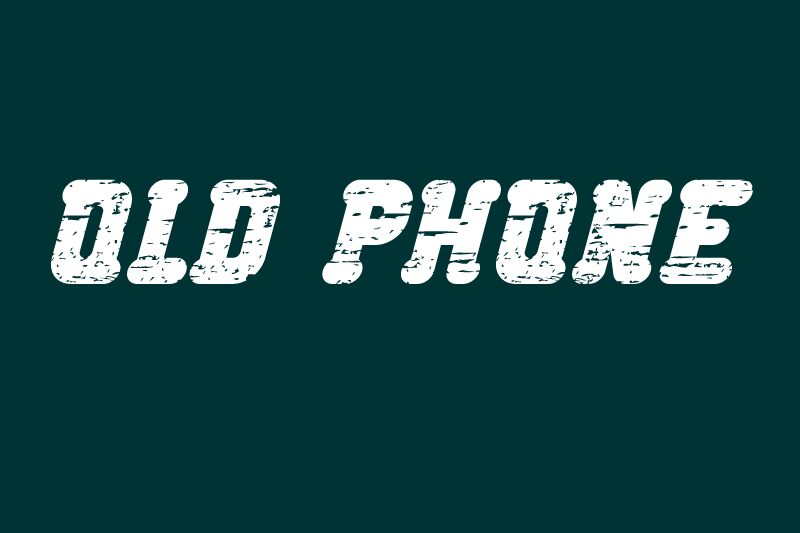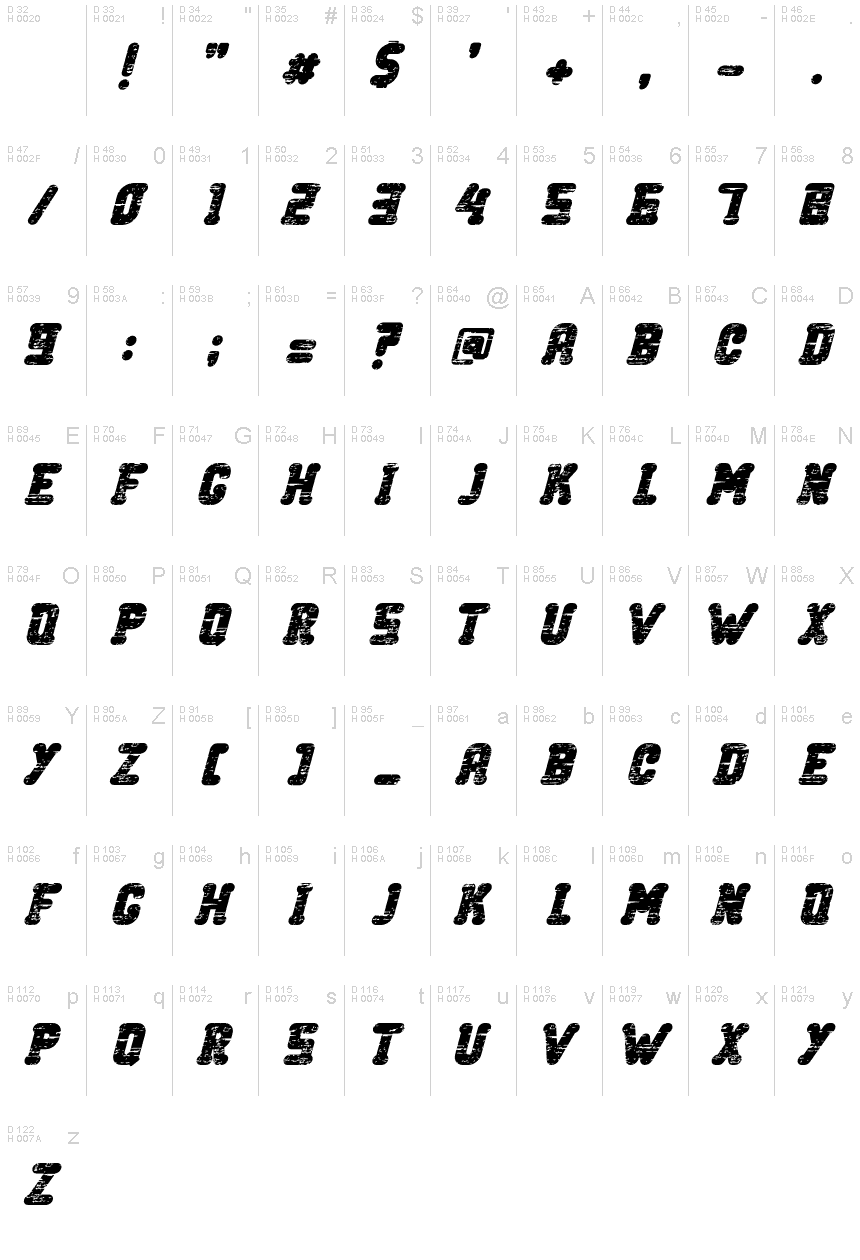
Old Phone Bold Italic
Old Phone Bold Italic is the perfect choice for vintage-inspired projects that aim to evoke nostalgia and authenticity.
Its eroded style adds a distressed and weathered look, ideal for creating a sense of history in branding, packaging, or signage designs. With its bold weight and semi-condensed width, this font commands attention without sacrificing legibility. Use Old Phone Bold Italic to add a touch of retro charm to your next project, whether it's a music album cover, handmade product label, or an old-fashioned advertisement.
Let this font transport your audience back in time with its worn-out elegance.